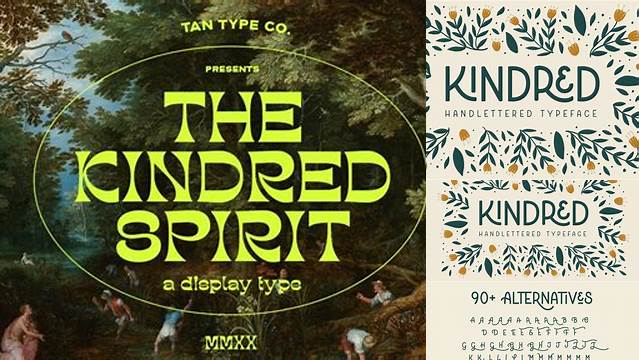
Tan Kindred Font: Download & Design Guide
Hey everyone! đź‘‹ Today, we're diving headfirst into the world of typography, specifically focusing on the Tan Kindred Font Free Download. This is a fantastic font that's been making waves in the design community, and for good reason! It's stylish, versatile, and, best of all, you can often find it available for free download. So, let's get started and explore everything you need to know about this awesome font, from where to snag it to how to use it in your amazing projects. We'll cover everything from the basics to some cool design tips and tricks.
Understanding the Tan Kindred Font Family: Styles and Features
Alright, now that you know where to find the Tan Kindred Font Free Download, let’s explore the font itself. What makes it special? The Tan Kindred font is typically a modern and elegant typeface. It often features a clean and contemporary design, making it perfect for a variety of design projects. Think about things like its weight (bold, regular, light, etc.) and if it has different styles (italic, condensed, etc.). Some fonts come in a single style, while others have a whole family of variations. The more styles, the more versatile the font becomes. For example, a font with multiple weights and italics allows for greater design flexibility. You can use the bold version for headlines, the regular version for body text, and the italics for emphasis. This variety allows you to create visual interest and hierarchy within your designs. The features can range from basic character sets to more advanced features like ligatures and alternate glyphs. Ligatures are special characters that combine two or more letters into a single character, which can improve the overall appearance of the text. Alternate glyphs provide variations of specific characters, allowing for a more customized look. A well-designed font will often include a wide range of characters, including special characters, symbols, and different language support. The more options available, the more flexible the font becomes for different design projects.
Before you download, check if the font supports the languages you need. Some fonts only support English, while others have extended character sets that cover a range of languages. If you're designing something for a global audience, make sure the font you choose supports the necessary languages. And if you’re not sure about the features or styles, browse through the font’s specimen sheet. This sheet showcases all the characters, weights, and styles available, giving you a good overview of what the font has to offer.
Tan Kindred Font Usage: Best Practices for Your Designs
Now, let's talk about how to use the Tan Kindred Font Free Download in your designs, shall we? The beauty of this font is its versatility, which allows it to shine in various contexts. Think about using it for headlines, logos, and even body text, depending on the specific style you download. Tan Kindred often works great in modern branding, creating a stylish and sophisticated feel. Think about pairing it with other fonts. One of the most critical aspects of font pairing is contrast. Pair a bold, display font like Tan Kindred with a more neutral and readable font for body text. This contrast helps create visual interest and makes your design easier to read. Try experimenting with different font combinations to find what works best for your project. Don’t be afraid to try unusual combinations. Consider the overall tone and message of your design. The font should align with the style and branding you want to portray. If your brand is modern and minimalist, Tan Kindred can be a perfect fit. If your brand is more playful, you may need a different font. When using the font for headlines, focus on creating an impact. Make them large and bold to capture attention. This is where bolder weights of Tan Kindred can truly shine. For body text, make sure the font is readable. Pay attention to the font size, line spacing, and letter spacing. These factors can greatly affect readability, so don't skip testing them.
Also, consider the context of your design. Is it for a website, a print flyer, or a social media post? Each medium has its own considerations. For web design, make sure the font is web-safe and loads quickly. For print design, ensure the font resolution is high enough for sharp prints. And for social media, keep in mind that fonts might appear differently across different platforms. When using the font in a logo, focus on its unique characteristics. Make sure the logo is memorable and reflects the brand’s personality. Think about different design elements that might complement the font, such as color and imagery. The key is to integrate the font seamlessly into your design, making it an integral part of the overall aesthetic and user experience. Try out different applications, from website design to social media graphics, from print materials to presentations.
Tan Kindred Font for Commercial Use: Licensing Considerations
Guys, if you're planning to use the Tan Kindred Font Free Download for commercial purposes, it's super important to pay close attention to the licensing agreements. Not all free fonts are created equal, and some might have restrictions on how you can use them commercially. Many fonts are available under the SIL Open Font License (OFL), which is very permissive and allows for commercial use. However, some may be free for personal use only, and you'll need to purchase a commercial license for projects that generate income or are used for business purposes. Always read the license agreement carefully. It will spell out exactly what you're allowed to do with the font, including whether you can use it in logos, websites, or other commercial materials. Double-check that the license covers your specific use case. Ensure you're clear on the terms of use. Some licenses might require you to credit the font designer, while others might have restrictions on modifying the font. Check for any redistribution restrictions. Some licenses prohibit you from distributing the font files themselves, while others might allow it under certain conditions. If you’re unsure, consult with a legal expert or font licensing specialist. They can provide clarification on the terms of the license and ensure you're compliant. Never assume that a font is free for commercial use without verifying the license. Always err on the side of caution and seek clarification if you have any doubts. When in doubt, contact the font designer or the website where you downloaded the font. They will be able to provide you with the most accurate and up-to-date information about the font's licensing. This helps you avoid potential legal issues and allows you to use the font ethically and responsibly.
Tan Kindred Font Alternatives: Exploring Similar Typefaces
If you’re looking for alternatives to the Tan Kindred Font Free Download, you're in luck! There are loads of awesome fonts out there that share similar characteristics and styles. When you’re exploring alternatives, consider the font's overall style. Do you want something modern, elegant, or perhaps a bit more playful? This will help you narrow down your choices. Think about the font's weight and style options. Do you need a font with multiple weights, italics, and condensed versions? Having options gives you more flexibility. Another thing to consider is the font's x-height. X-height refers to the height of the lowercase 'x' in a font. Fonts with a larger x-height are often more readable, especially in body text. Check out other fonts with similar design aesthetics, such as the popular sans-serif fonts. Some fonts like Montserrat, Lato, and Open Sans are great free alternatives that offer a similar clean and modern look. Consider fonts that are known for their readability, especially if you're using them for body text. Fonts like Arial and Helvetica are classic choices that work well in a variety of contexts. Another option is exploring fonts with unique character sets. Look for fonts with special characters, ligatures, and alternate glyphs that can add visual interest to your designs. Also, consider where you’ll be using the font. If you are planning to use it for a website, make sure it’s web-safe and loads quickly. Google Fonts is an excellent resource for finding web-safe fonts, as it hosts a vast collection of free fonts optimized for web use. There are also paid font options available, which can offer greater design flexibility and more unique styles. Researching and comparing different fonts will help you find the perfect alternative to the Tan Kindred Font Free Download for your design needs.
Tan Kindred Font in Graphic Design: Creating Stunning Visuals
Alright, let's dive into how you can use the Tan Kindred Font Free Download in graphic design to create some stunning visuals. Tan Kindred is often used for creating headlines and titles, as it has a clean and modern look that grabs attention. Try different weights of the font to create visual hierarchy. Use a bold weight for important headings and a lighter weight for subheadings or body text. You can also use the font in logo design, especially if you’re aiming for a minimalist or contemporary look. This is where a professional look can be obtained. When it comes to branding, Tan Kindred can be used in various brand assets, such as brochures, business cards, and social media graphics. Use the font to create a consistent brand identity that reflects your brand's personality. Play with different color palettes to complement the font. The color scheme of your design can greatly affect its overall aesthetic. You could experiment with different color combinations and see which ones work best. In web design, the font can be used for headings, navigation, and body text. Make sure your website is easy to read and navigate for an optimal user experience. When designing social media graphics, use the font to create engaging posts that capture your audience's attention. Experiment with different design layouts and styles to see what works best for you. You can experiment with different design layouts and styles to see what works best for you. In print design, the font can be used for flyers, posters, and other marketing materials. Ensure the font resolution is high enough to avoid pixelation. For packaging design, the font can be used to create labels and packaging that stand out on the shelves. This can significantly impact a product's appeal. Always consider the context of your design and the message you want to convey. Tan Kindred Font can enhance the visual appeal of various graphic design projects, helping you create a lasting impression on your audience.
Tan Kindred Font for Beginners: Getting Started with Typography
If you're new to the world of typography, here’s a friendly guide to help you get started with the Tan Kindred Font Free Download. First, you need to learn some basic terminology, like the difference between serifs and sans-serifs, and what terms like